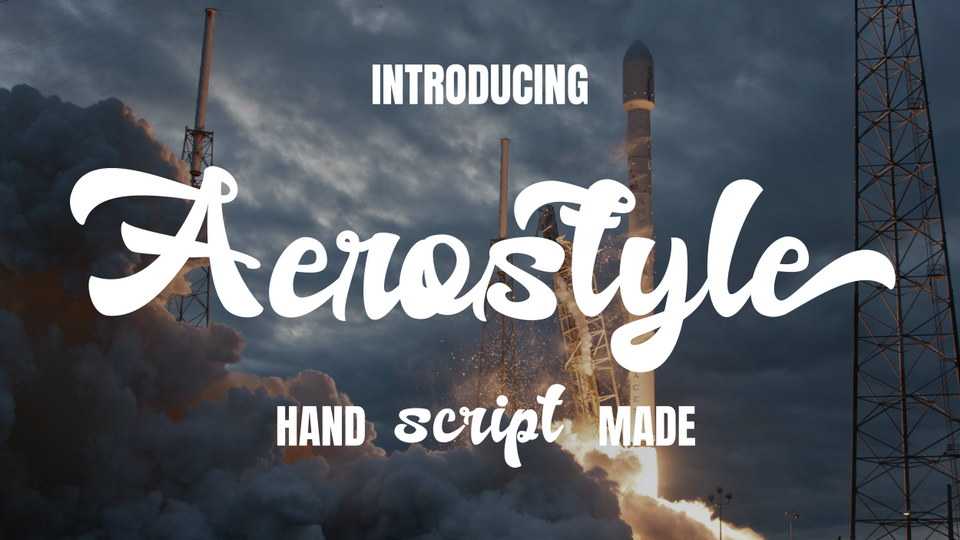
Download Aerostyle font, an elegant and flowing handwritten typeface. Aerostyle has beautiful and well balanced characters and as a result, it matches a wide pool of designs.
Designer: sugiharto